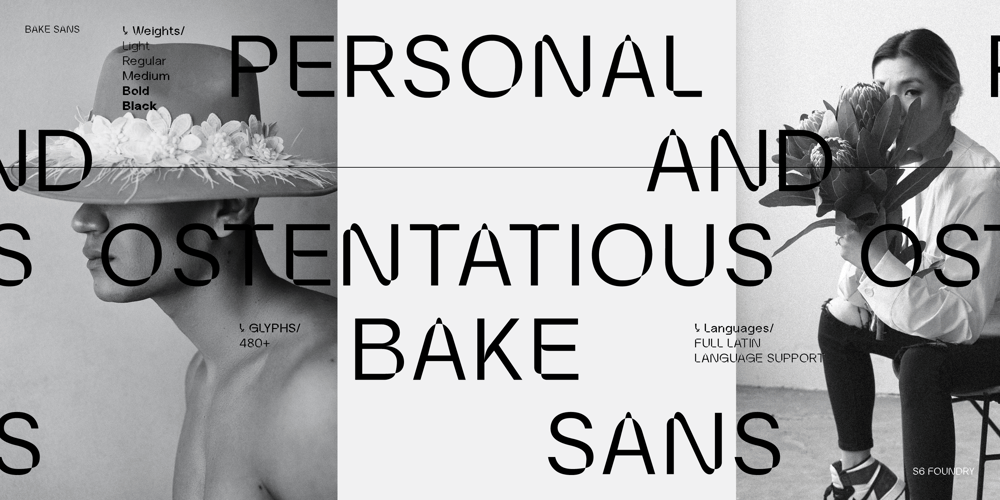
Bake Sans Font Family was designed by Paul Henry Robb and published by S6 Foundry. Bake Sans contains 5 styles and family package options. Bake Sans is a captivating contemporary typeface that exudes style and personality. Crafted with modern and distinctive shapes and curves, this font offers the perfect visual consistency for your branding and communication projects. Elevate your designs with Bake Sans and make a lasting impression. Ideal for logos, websites, and marketing materials.